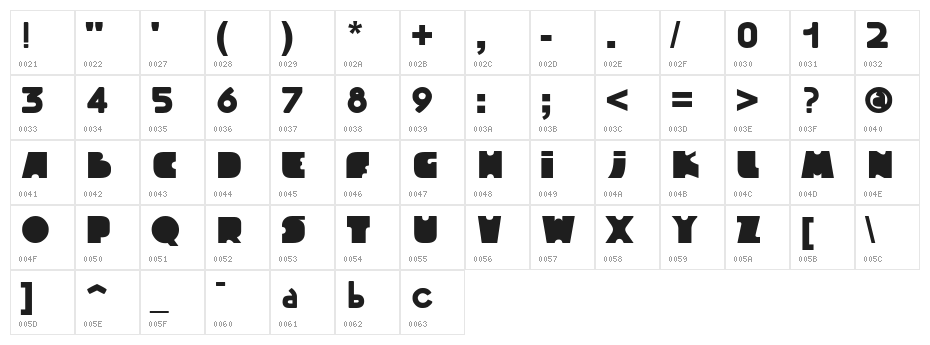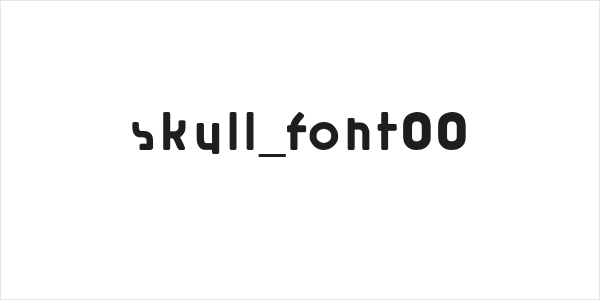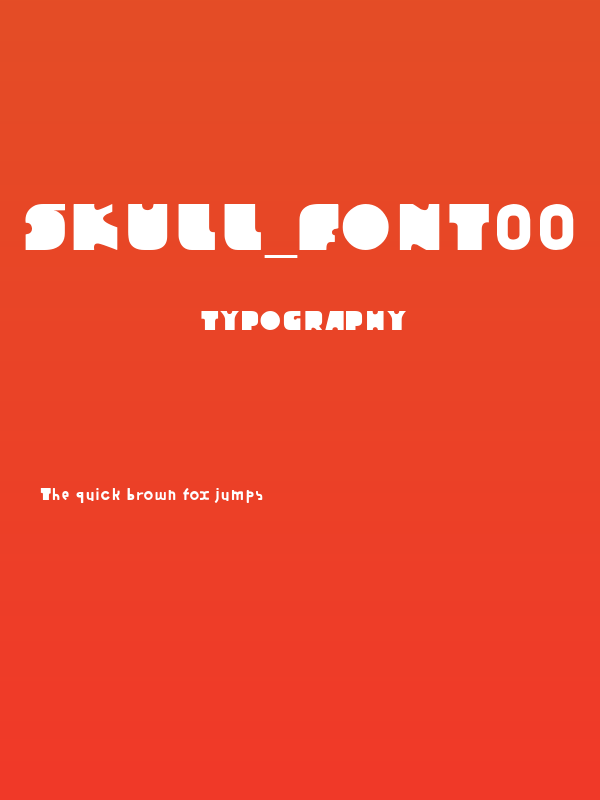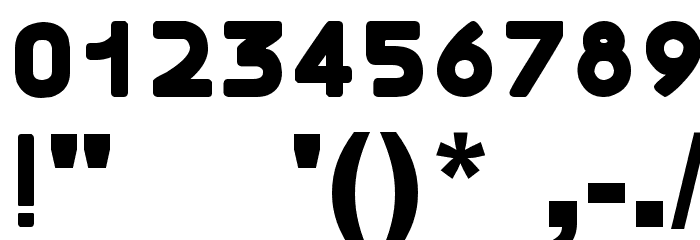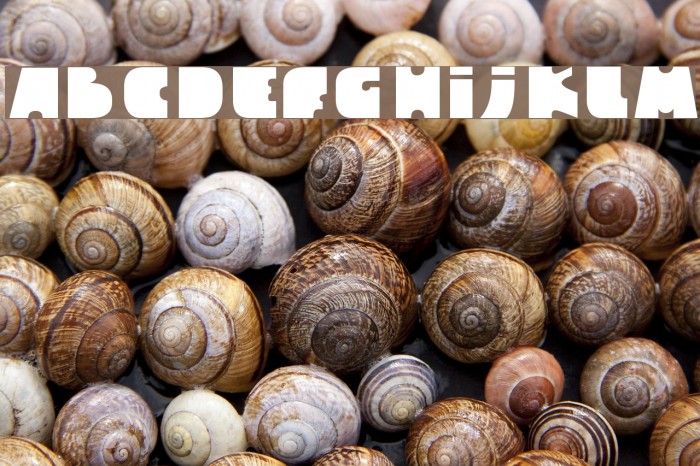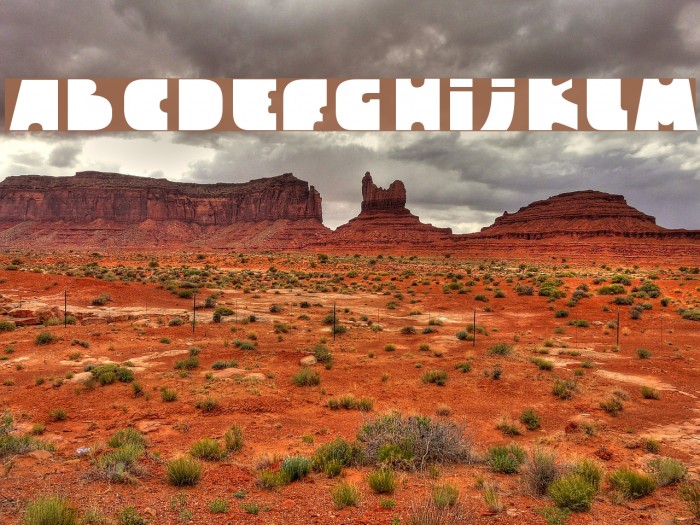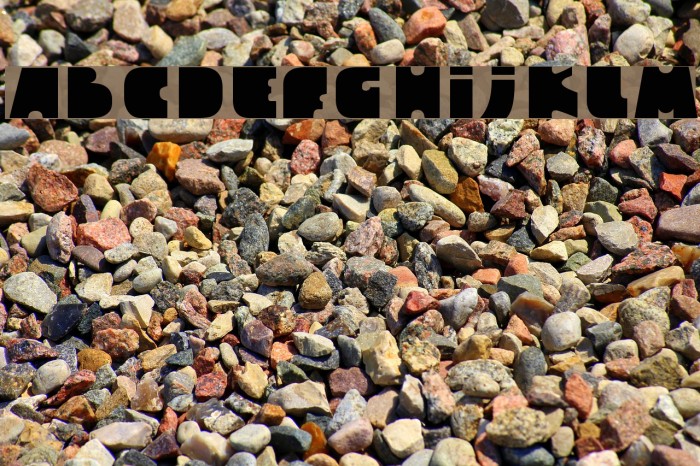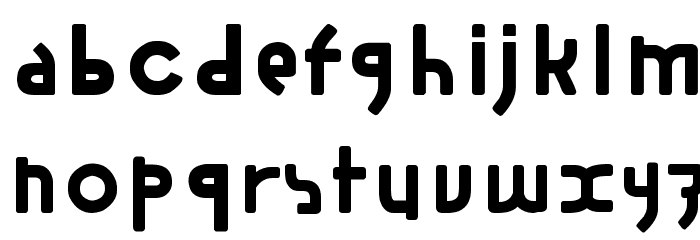
skull_font00 Font
skull_font00 Description
This font features a bold and striking design with a playful yet edgy aesthetic. The characters are thick and robust, with unique cutouts and angles that give them a distinctive, almost geometric appearance. The uppercase letters are particularly bold, with a strong presence that demands attention. The lowercase letters maintain the same boldness but with a slightly softer edge, making them versatile for various design applications. The numbers and special characters follow the same design principles, ensuring consistency throughout the typeface. This font is perfect for projects that require a bold statement, such as posters, logos, or branding materials.
| Proposed Projects | Ideal for posters, logos, branding, and any project needing a bold statement. |